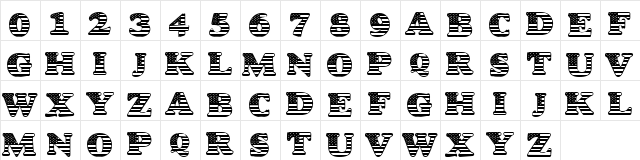
LMS Star Spangled Regular
Design Context for LMS Star Spangled Typeface
LMS Star Spangled is a composed and adaptable typeface that performs quietly and consistently across a wide range of design contexts.